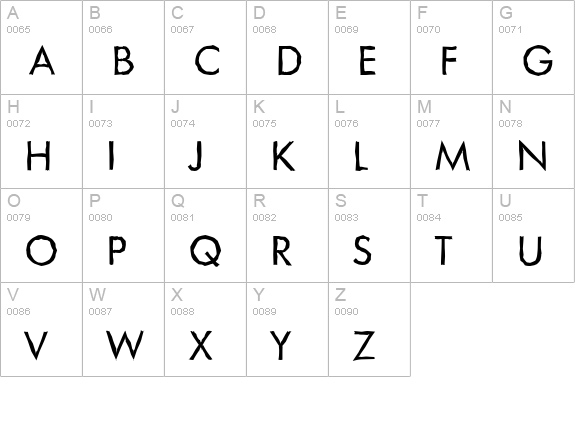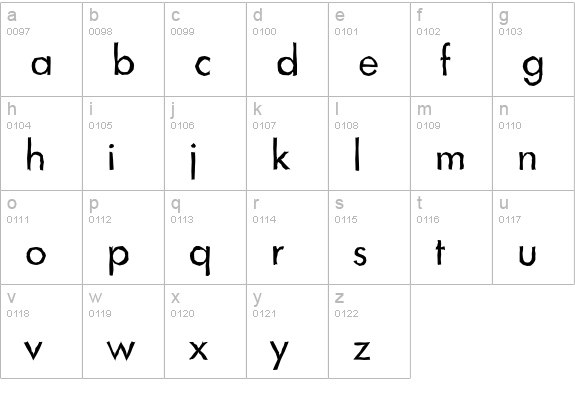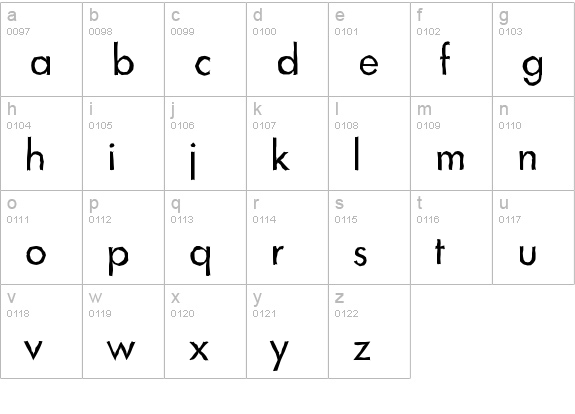
LimerickAntique-Regular Font Details
LimerickAntique-Regular is the standard, neutral variant in the LimerickAntique typeface family \xE2\x80\x94 well suited to general body text, paragraphs, and standard typographic work.
LimerickAntique-Regular font exudes timeless elegance and classical charm, making it the perfect choice for projects that require a touch of vintage sophistication. With its intricate details and delicate curves, this font is a true masterpiece that adds a touch of refinement to any design. And the best part? LimerickAntique-Regular font is completely free to download at FontsMarket.com! You can easily elevate your projects with this exquisite font without any cost. Embrace the beauty of the past with LimerickAntique-Regular and let its grace and sophistication elevate your designs to new heights. Download it now and add a touch of antique charm to your creations.